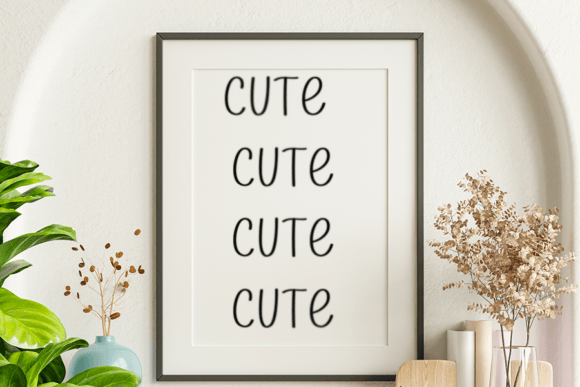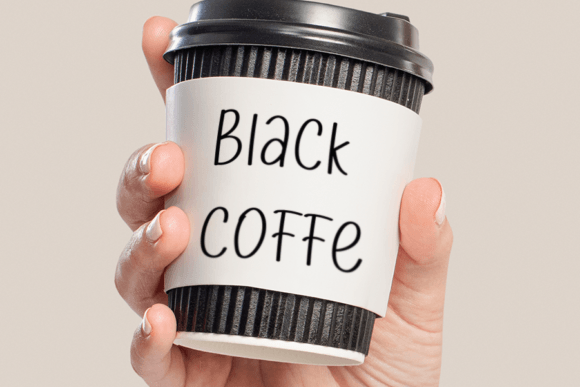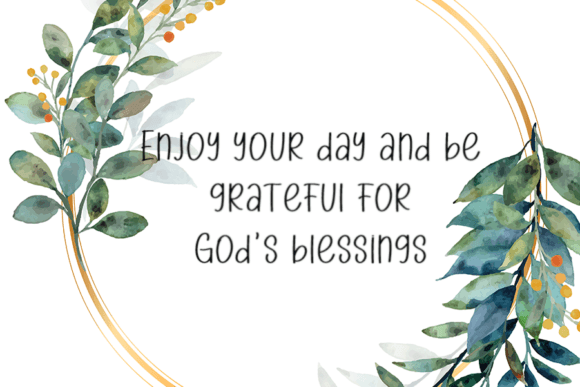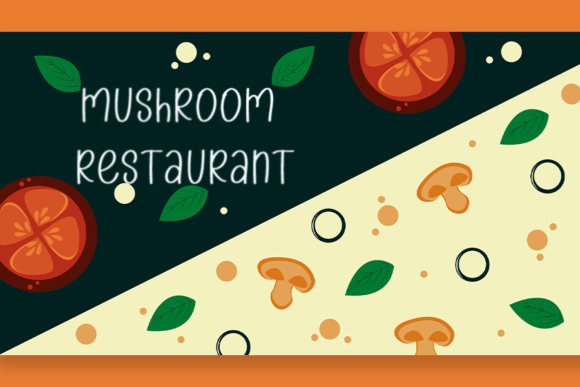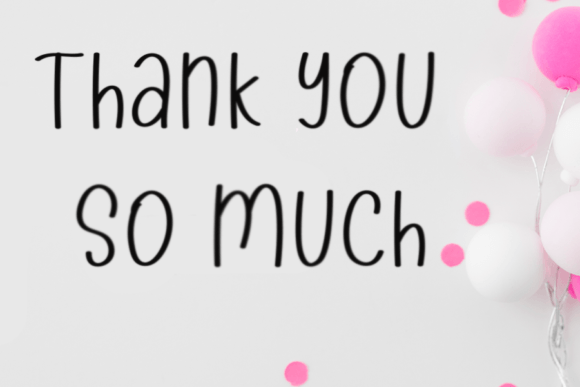
Introducing Children Girls Font: The Whimsical Script Font for Designers and Crafters
Are you a designer or crafter looking for a font that captures the essence of childhood innocence? Look no further than Children Girls Font, a handcrafted script font that brings joy and playfulness to every design. With its whimsical strokes and enchanting handwritten style, this delightful font is perfect for a variety of creative projects, from invitations and crafts to digital designs and more.
The Inspiration Behind Children Girls Font
Children Girls Font was created with love and care, inspired by the carefree spirit of childhood. The font’s designer aimed to capture the innocence and playfulness of young girls, distilling it into a beautiful and unique script font. Each letter and stroke was handcrafted to evoke a sense of joy and wonder, making it perfect for designs that require a touch of whimsy and charm.
Key Features of Children Girls Font
So, what makes Children Girls Font so special? Here are just a few of its key features:
• Whimsical script style: Children Girls Font boasts a playful, cursive script style that’s perfect for designs that require a touch of elegance and sophistication.
• Handcrafted with love: Each letter and stroke was carefully crafted to ensure a unique and personal touch.
• Playful strokes: The font’s playful strokes add a sense of movement and energy to every design.
• Perfect for creative projects: Children Girls Font is ideal for a variety of creative projects, from invitations and crafts to digital designs and more.
Uses for Children Girls Font
Children Girls Font is a versatile font that can be used in a variety of creative projects, including:
• Invitations: Create beautiful and unique invitations for birthday parties, baby showers, and other special occasions.
• Crafts: Add a touch of whimsy and charm to your handmade crafts, such as scrapbooking, card making, and more.
• Digital designs: Use Children Girls Font to create stunning digital designs, such as social media graphics, blog posts, and more.
• Stationery: Create adorable stationery, including notebooks, journals, and more.
Why Choose Children Girls Font?
So, why choose Children Girls Font for your next creative project? Here are just a few reasons:
• Unique and eye-catching: Children Girls Font is a one-of-a-kind font that will make your designs stand out from the crowd.
• High-quality design: Children Girls Font is designed with high-quality and attention to detail, ensuring a professional finish for every project.
Font Name Children Girls Font
Author pinkmeca
In conclusion, Children Girls Font is a delightful and enchanting handwritten font that’s perfect for designers and crafters looking to add a touch of whimsy and charm to their creative projects. With its playful strokes, whimsical script style, and handcrafted design, this font is sure to bring joy and inspiration to every design. So why wait? Download Children Girls Font today and let your creativity soar!